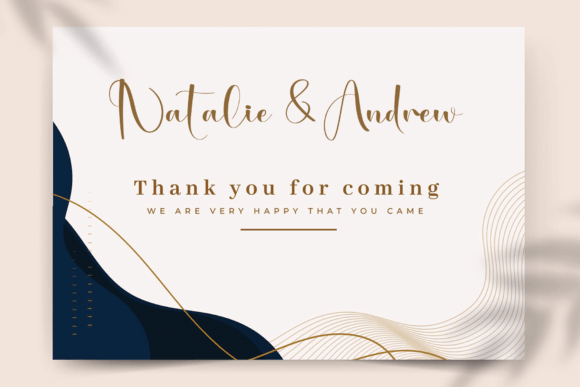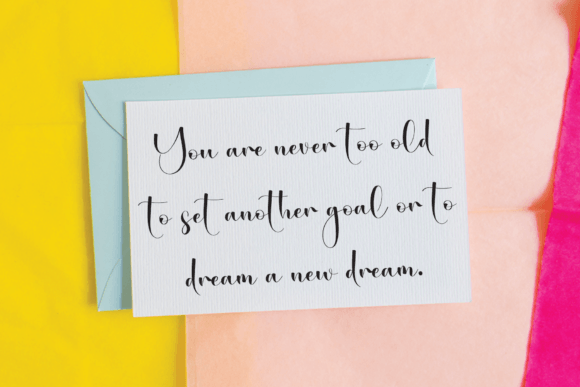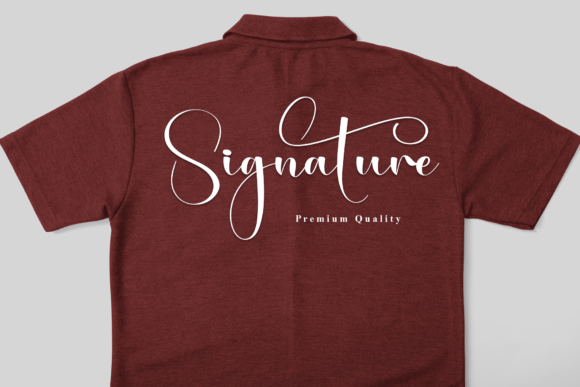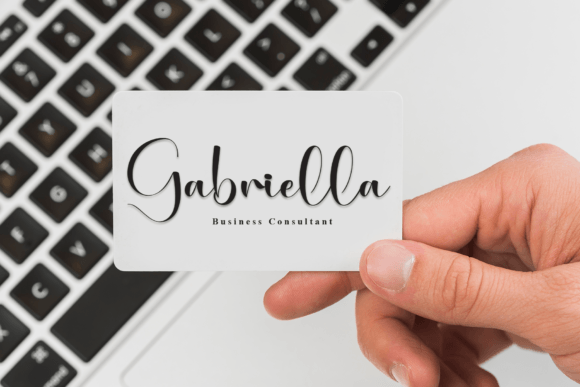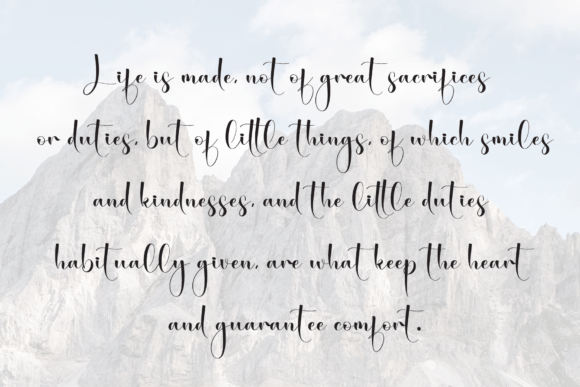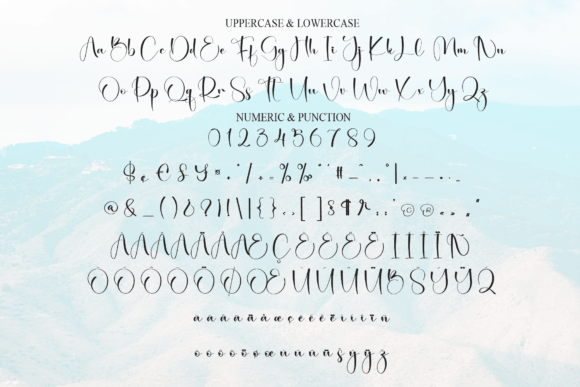
Introduction to Kamala Mountain Font Font
Fonts play a crucial role in design, and the Kamala Mountain Font font is a typeface that brings both character and versatility to any project. Whether you’re working on a branding project, a website, or a print design, the Kamala Mountain Font font offers a unique style that can elevate your work.
Kamala Mountain is a stylish handwritten script font that exudes elegance and charm with its flowing, graceful curves.
Perfect for invitations, logos, and branding, it adds a personal and sophisticated touch to any design The fontβs delicate strokes bring warmth and creativity to your projects.
Key Features of Kamala Mountain Font Font
Why Choose Kamala Mountain Font Font?
The Kamala Mountain Font font is more than just a typeface β it’s a design tool that helps you communicate your message with style and clarity. Its unique character set and versatile design make it suitable for a wide range of applications, from elegant invitations to bold headlines.
With its carefully crafted letterforms and balanced proportions, the Kamala Mountain Font font ensures readability and visual appeal across all mediums.
What makes Kamala Mountain Font font special?
The Kamala Mountain Font font stands out with its unique design, exceptional readability, and versatility across various design applications.